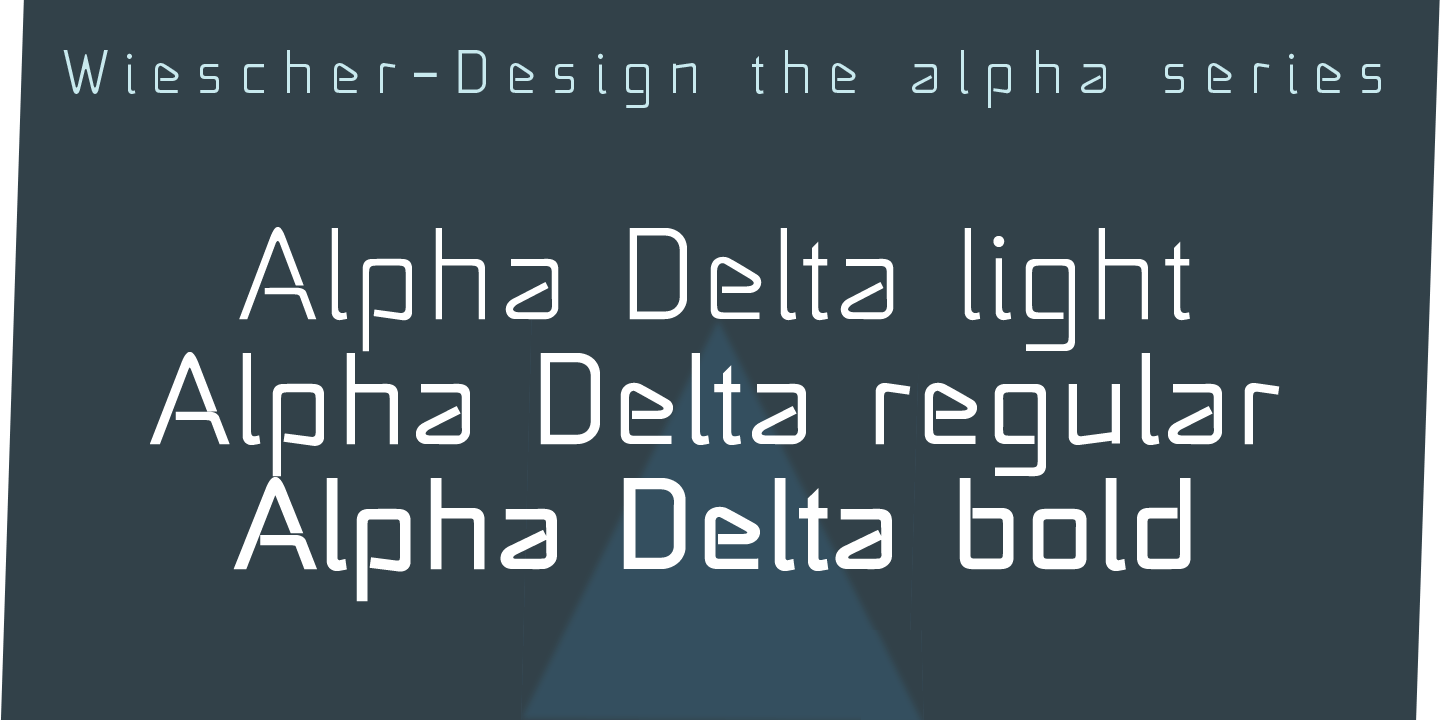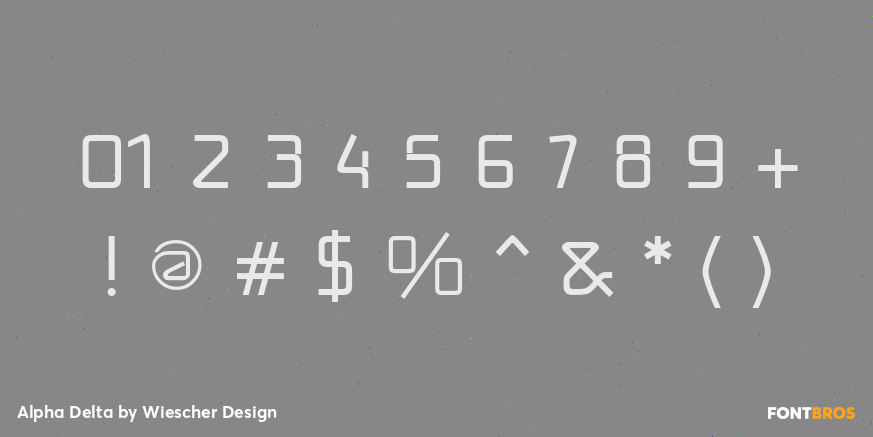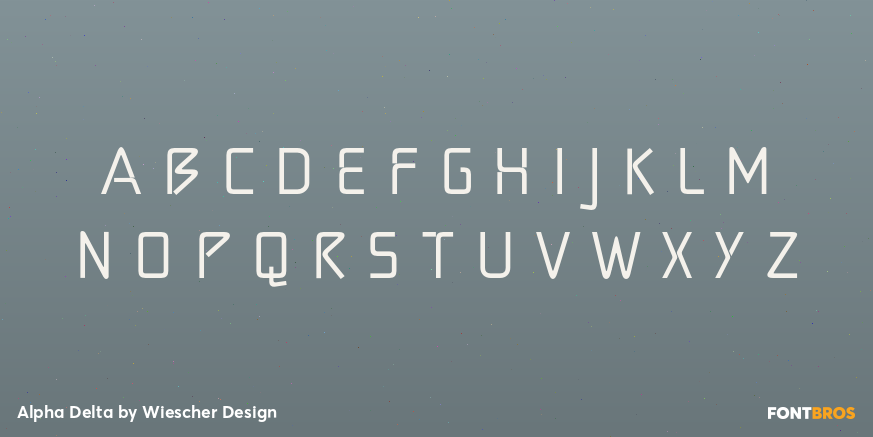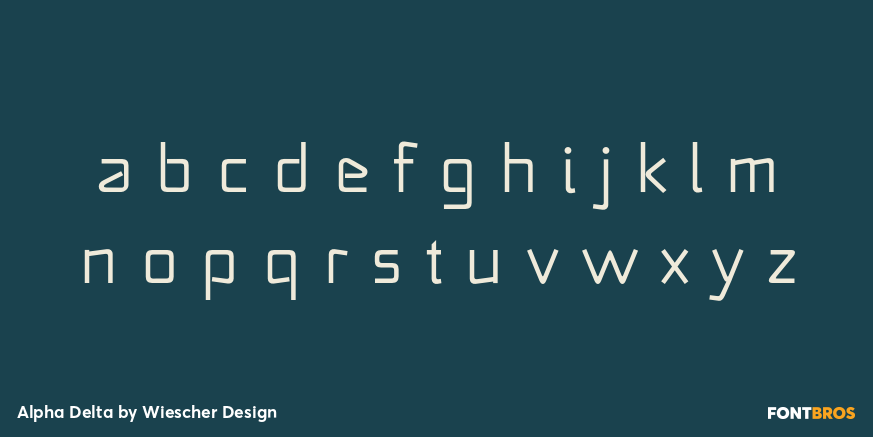
Alpha Delta
Font Family by Wiescher Design
The standard paperclip is the basic idea behind this Alpha Delta. By working on it, I changed it so that it doesn't look too much like a paperclip any more.